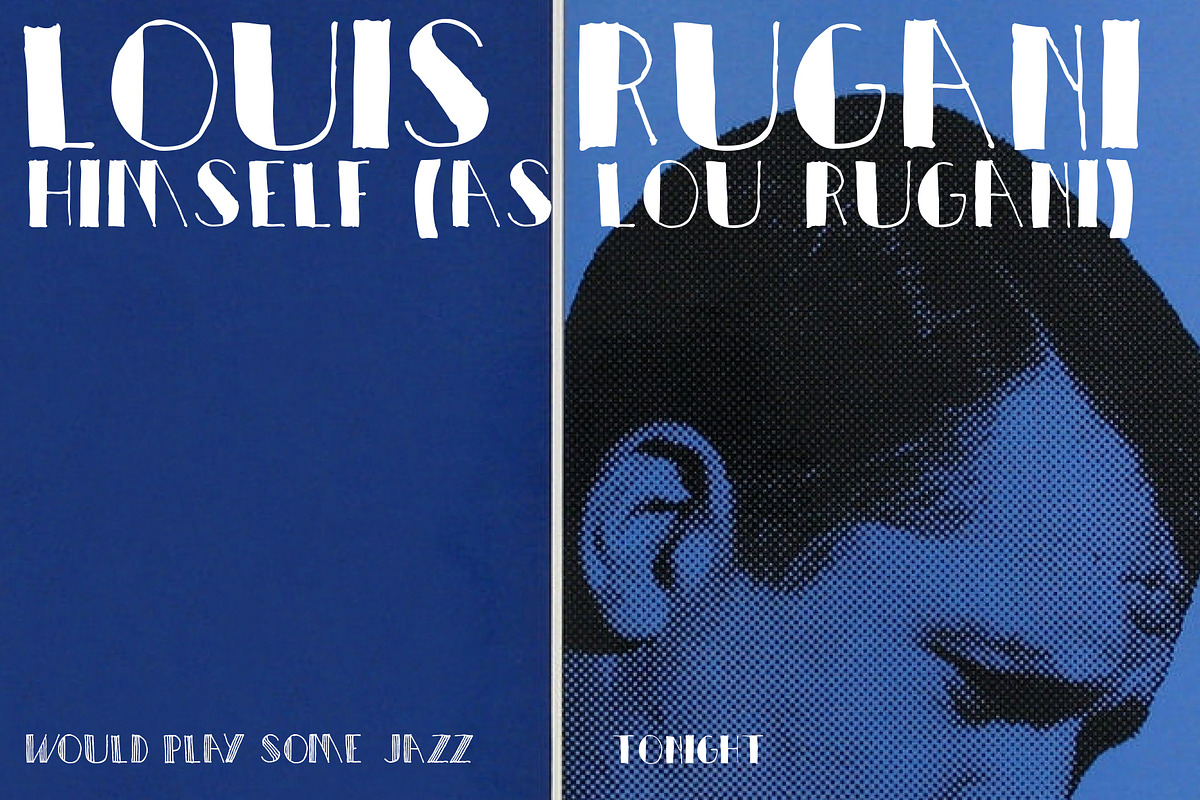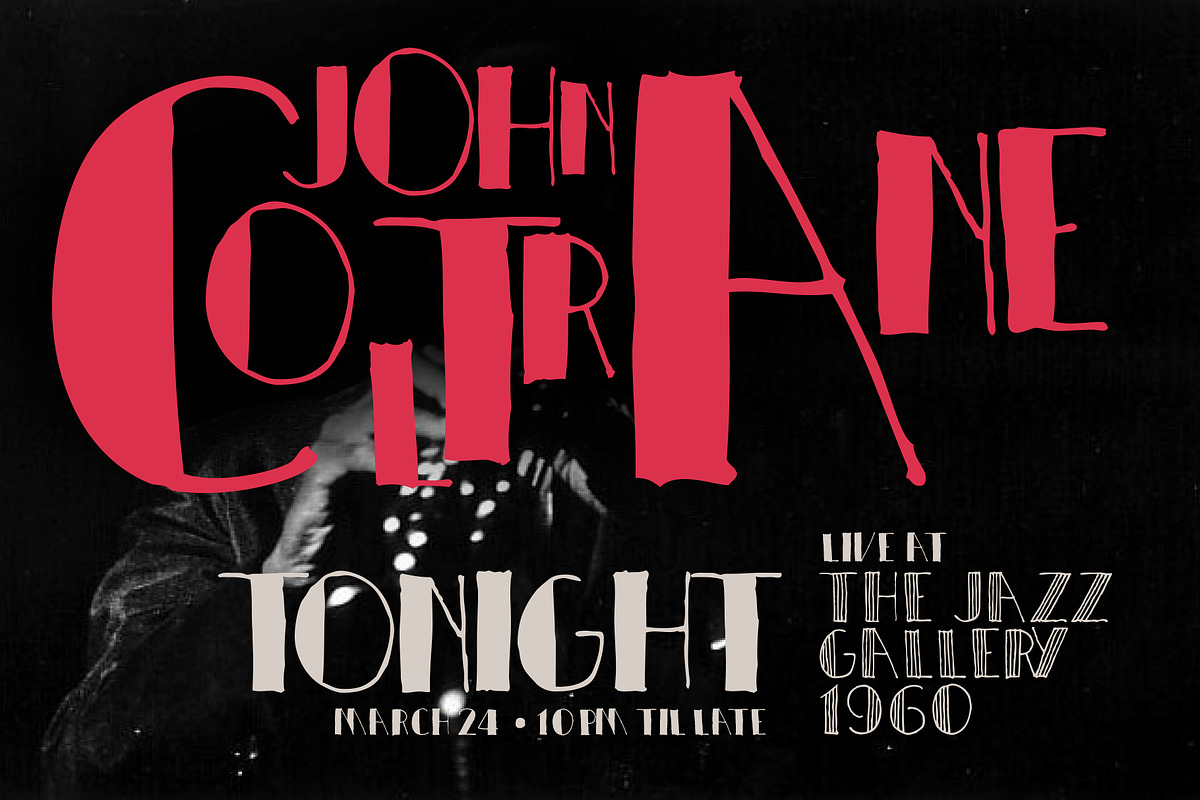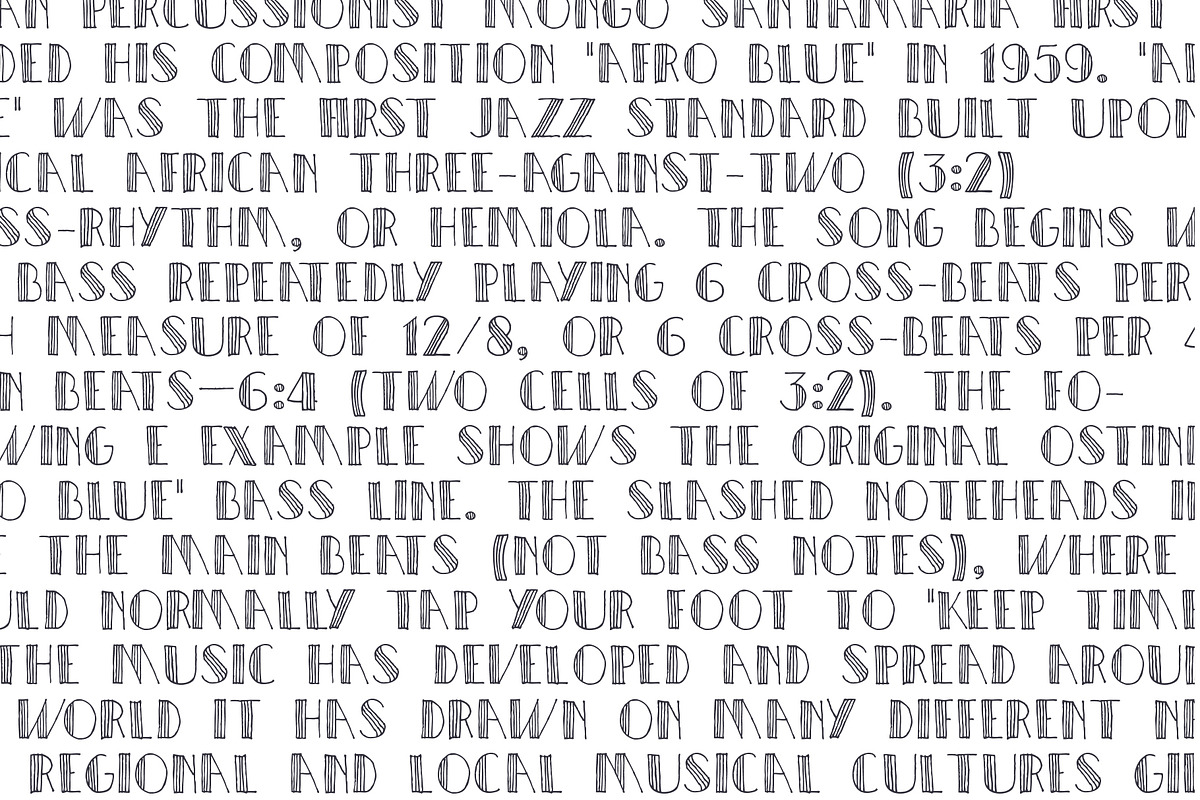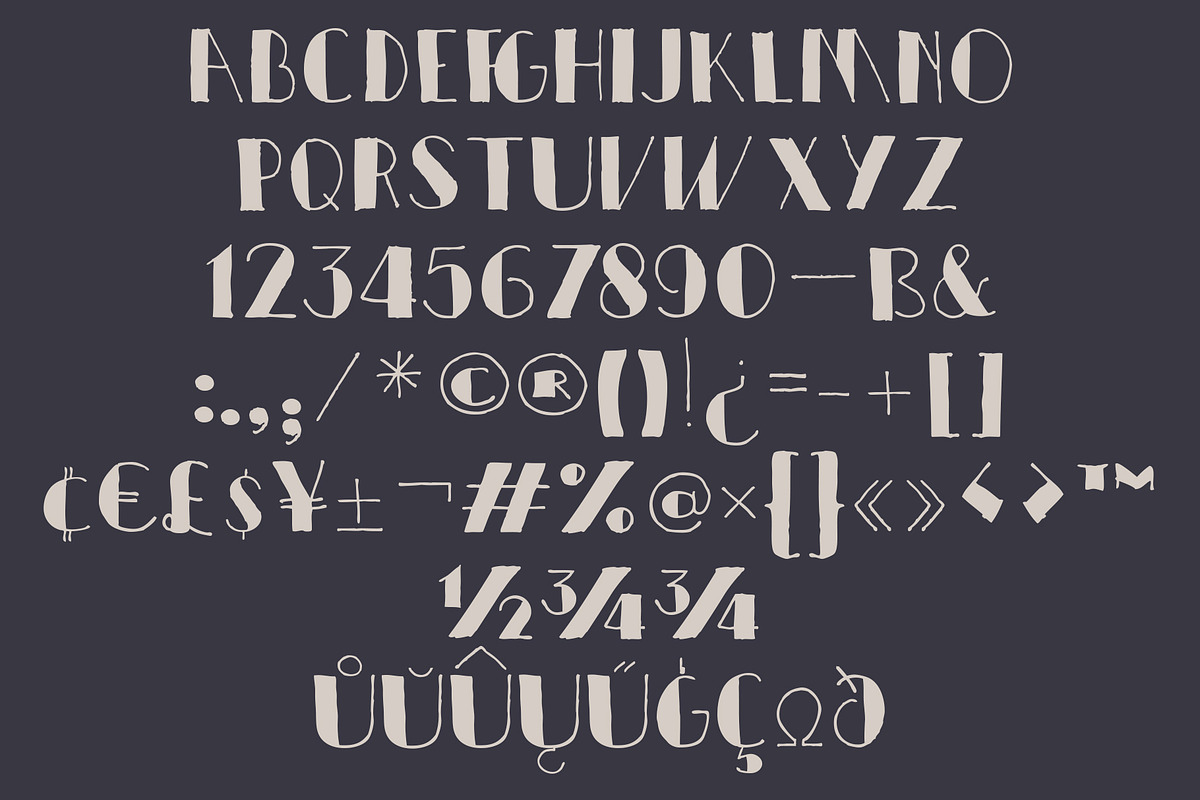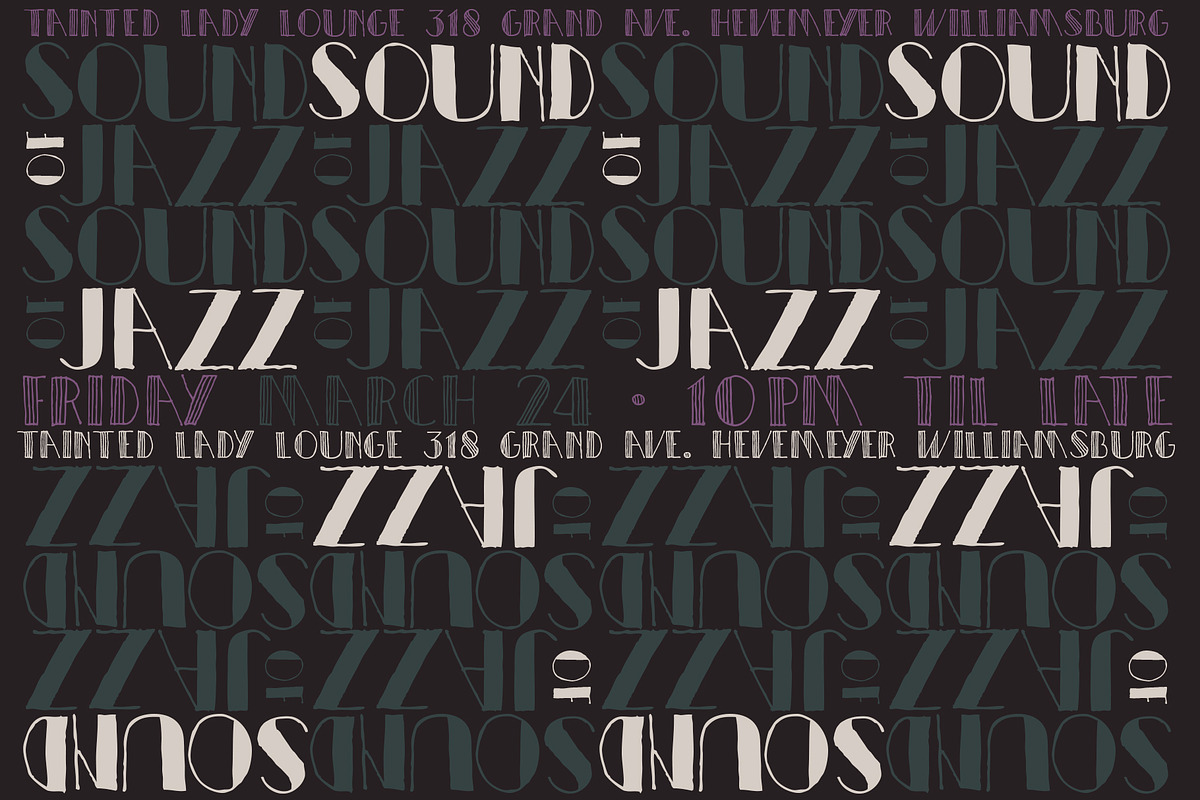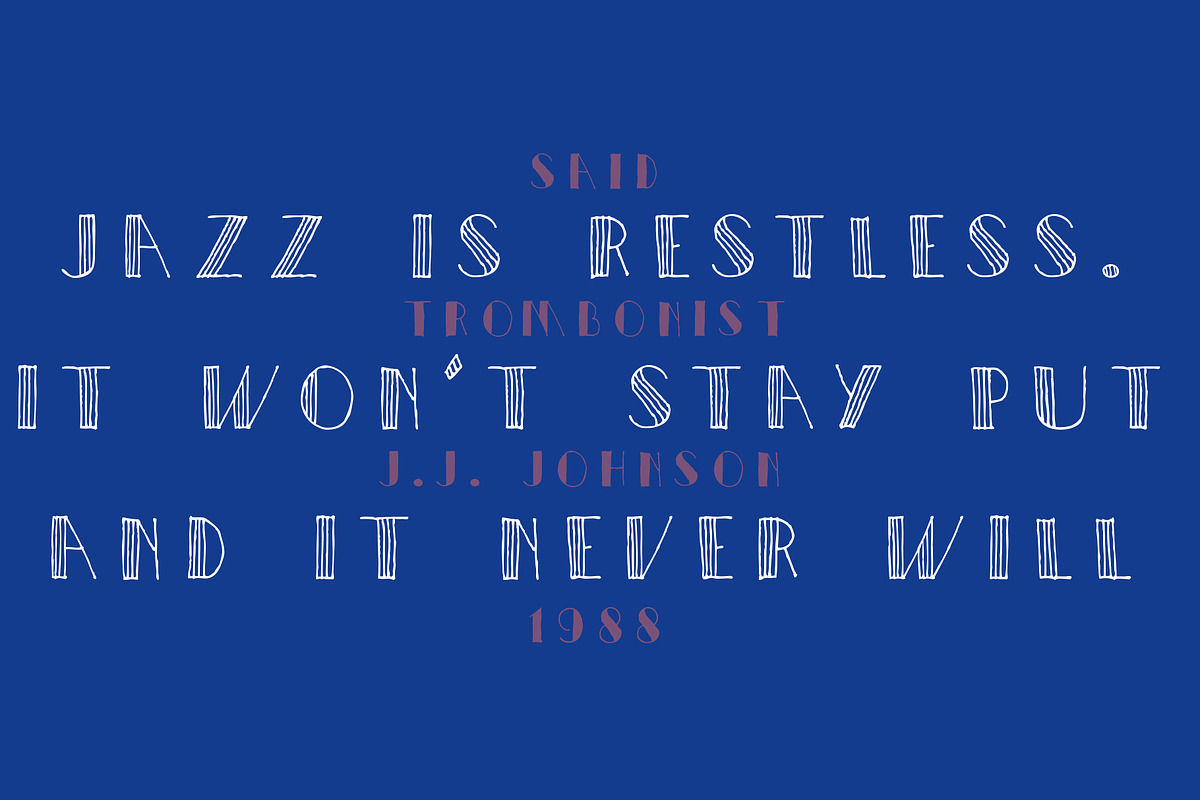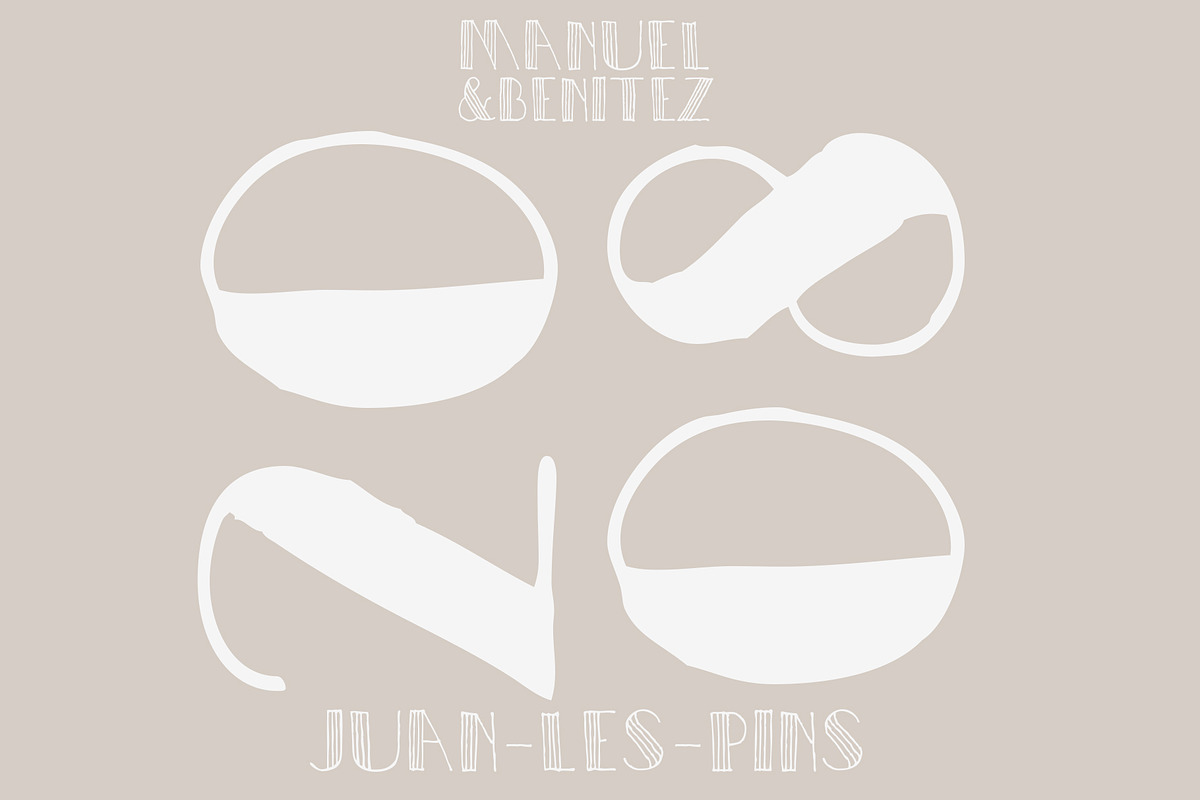
TOMO Astoria
TOMO Astoria is a handmade typeface with clear Art Deco roots. Ideal for illustrative posters and subtle details. Have fun!
TOMO Astoria by TOMO Fonts fits naturally into Branding, posters, packaging, typography.